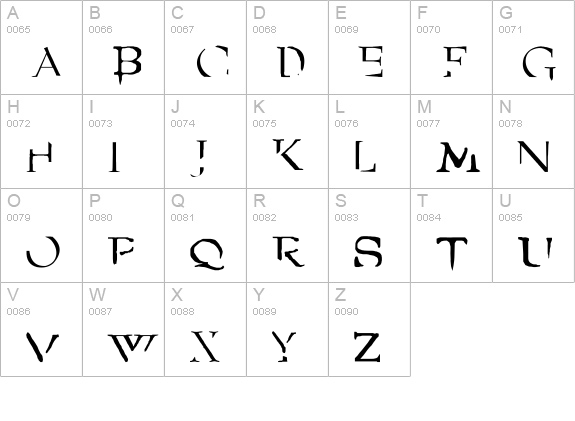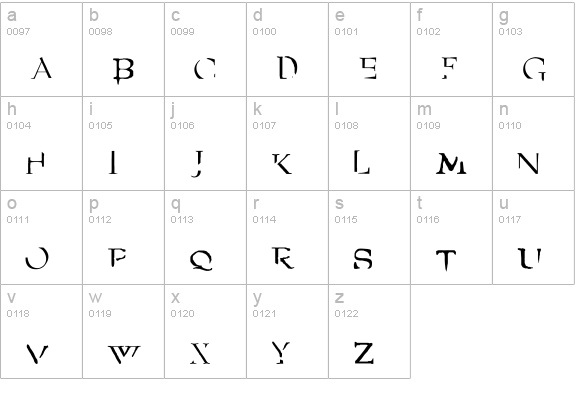
Introducing Angel font - a charming and elegant typeface that will add a touch of grace to your designs. This beautiful font features delicate lines and graceful curves, making it perfect for wedding invitations, greeting cards, and other special projects. With its ethereal quality, Angel font will bring a sense of enchantment to any design. What's even better is that Angel font is available for free! You can download this stunning typeface at FontsMarket.com and start using it in your projects right away. Don't miss out on the opportunity to add a touch of angelic beauty to your designs with this lovely font.